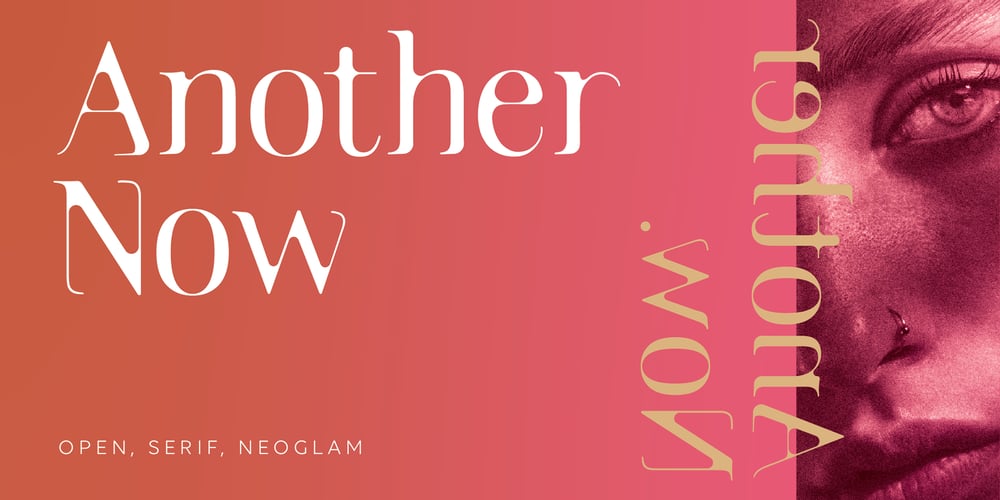
Anothernow Font Family was designed by Ioannis Panagiotopoulos and published by IPL Type Foundry. Anothernow contains 2 styles and family package options. Another Now is a typeface with an elegant touch. Combining the classic with the new, Another Now has a glamourous, neoteristic style which we like to call Neoglam. Delicate hairlines meet thicker stems.This font can be used for fashion or beauty-related projects, branding, logos, headlines, and more. Modern and contemporary, Another Now is a step forward to elegance.